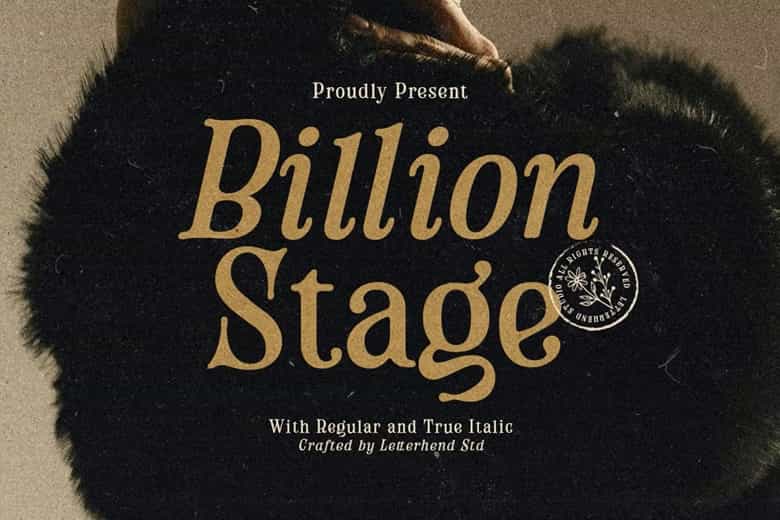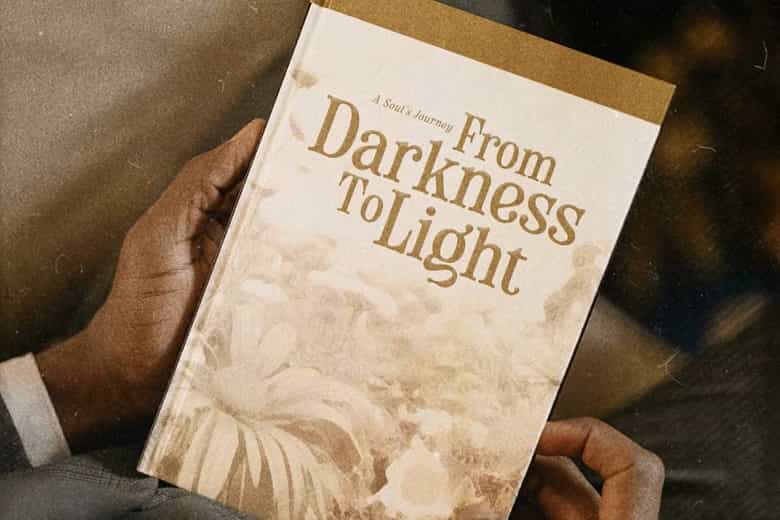
Billion Stage is an elegant and bold, vintage with a modern twist serif. Designed with sophistication and timeless appeal in mind this font makes perfect logos, editorial design, product packaging, branding, inviation. Billion Stage offers a luxurious and classic touch to a design project, especially its refined letterforms, smooth curves and classy ligatures.